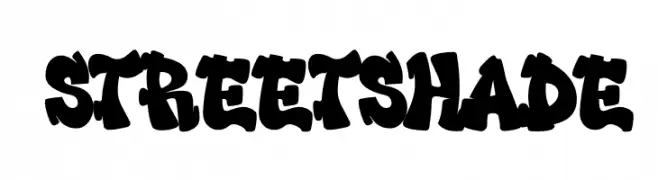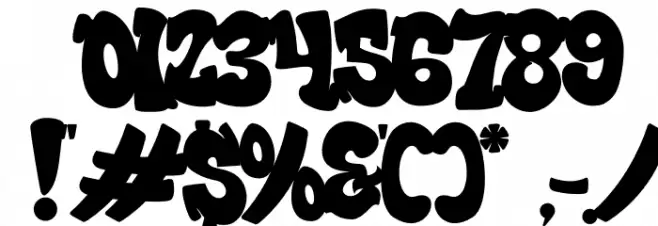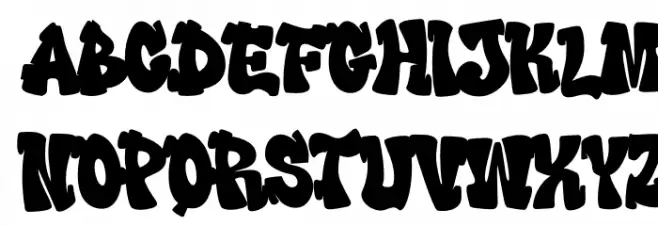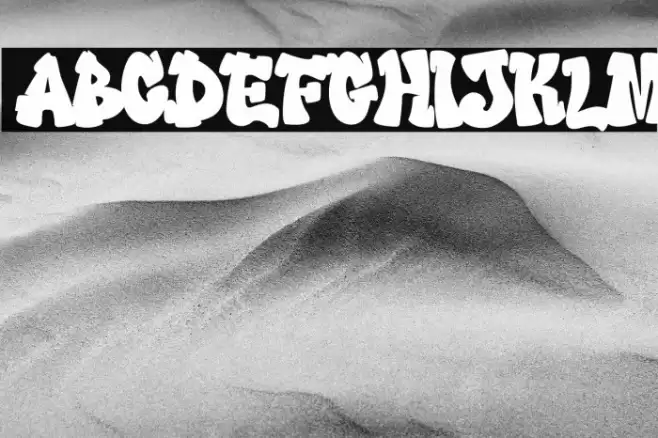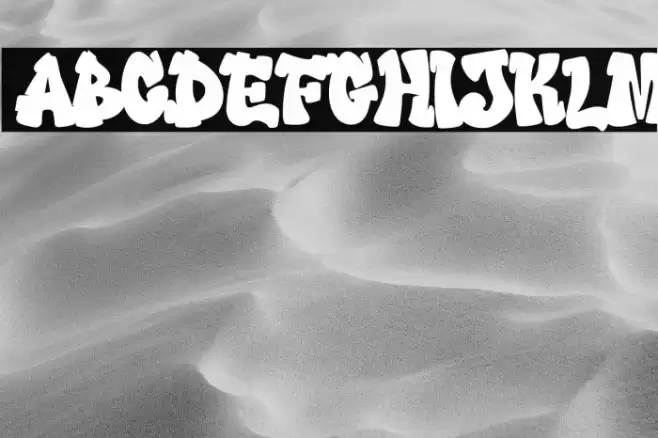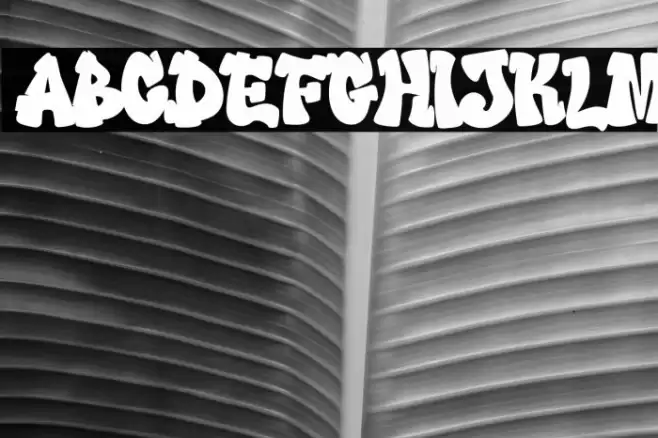
Street Shade Font
Street Shade Description
Bold, playful, and chunky display font with irregular, hand-drawn style characters.
| Overall Style | Playful, Cartoonish, Hand-drawn |
| Use Case | Headlines, Posters, Logos, Children's products |